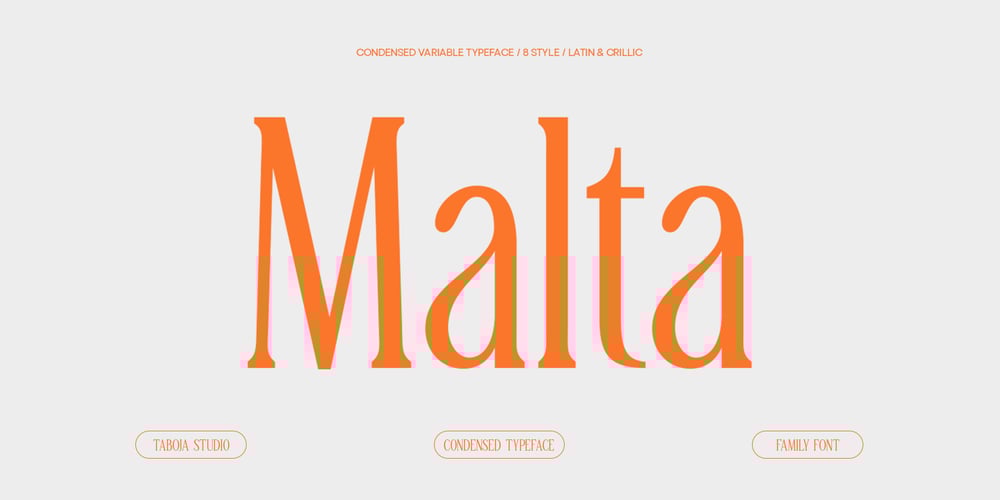
TBJ Malta Condensed Serif Family Font Family was designed by Yusilo Oktaprima Ardani and published by Taboja Studio. TBJ Malta Condensed Serif Family contains 9 styles and family package options. TBJ Malta is a serif typeface designed with elegance and ease of use in mind. It offers a classic yet modern look, providing flexibility for various designs. Malta delivers captivating visuals and clarity in every letter.TBJ Malta is a beautifully nostalgic 9-Font typeface that looks incredible in both large and small settings as a display and body text. With intuitive design and balanced proportions, Malta is easy to use in different contexts,ensuring optimal reading comfort for both long and short texts. It combines traditional charm with a modern style, making it highly versatile for both print and digital media.TBJ Malta is the choice for designers seeking a blend of classic elegance and ease of use in one package.With 9 variants from Light to Black, Malta offers maximum flexibility for all design needs.——Includes:- TBJ Malta Thin, Extra Light, Light, Regular, Medium, Bold, Extra Bold, Black- Uppercase- Lowercase- Numerals and Punctuation- Accented characters- Multilingual Support- Unicode PUA Encoded——We highly recommend using a program that supports OpenType features and Glyphs panels such as Adobe Illustrator, Adobe Photoshop CC, Adobe Indesign, or CorelDraw, so you can see and access all Glyph variations.While using this product, if you encounter any problem or spot something we may have missed, please don’t hesitate to drop us a message. We’d love to hear your feedbacks in order to further fine-tune our products.Stay creative and have a wonderful day.